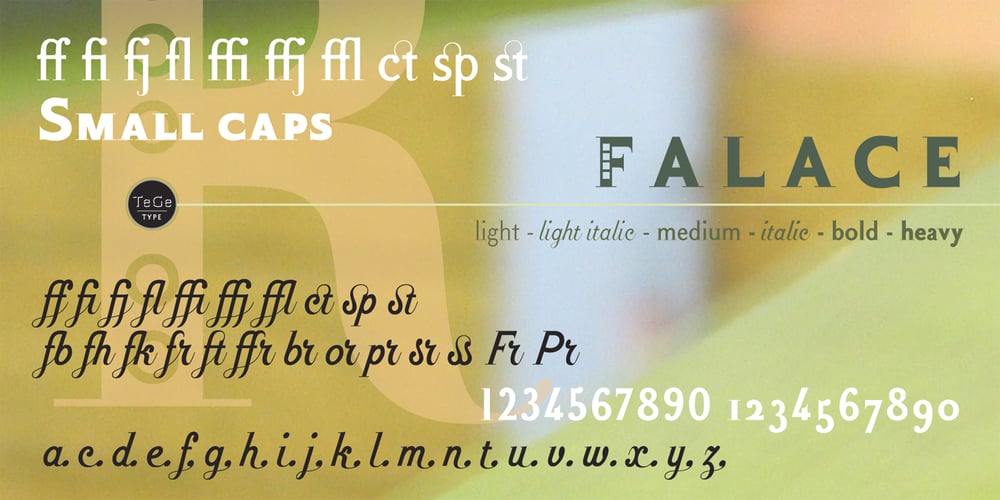
Falace Font Family was designed by Thierry Gouttenègre and published by TeGeType. Falace contains 6 styles and family package options. The Falace family, a contemporary interpretation of the Didone typefaces, is designed for text applications.